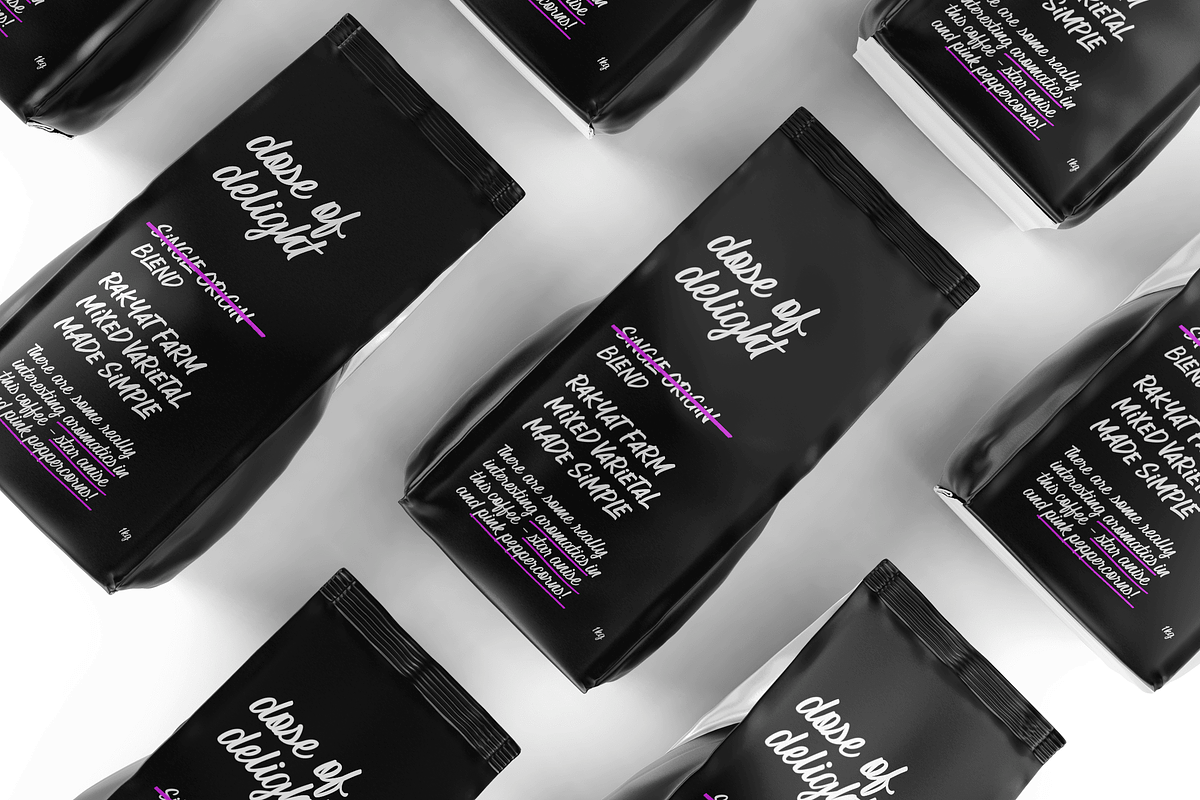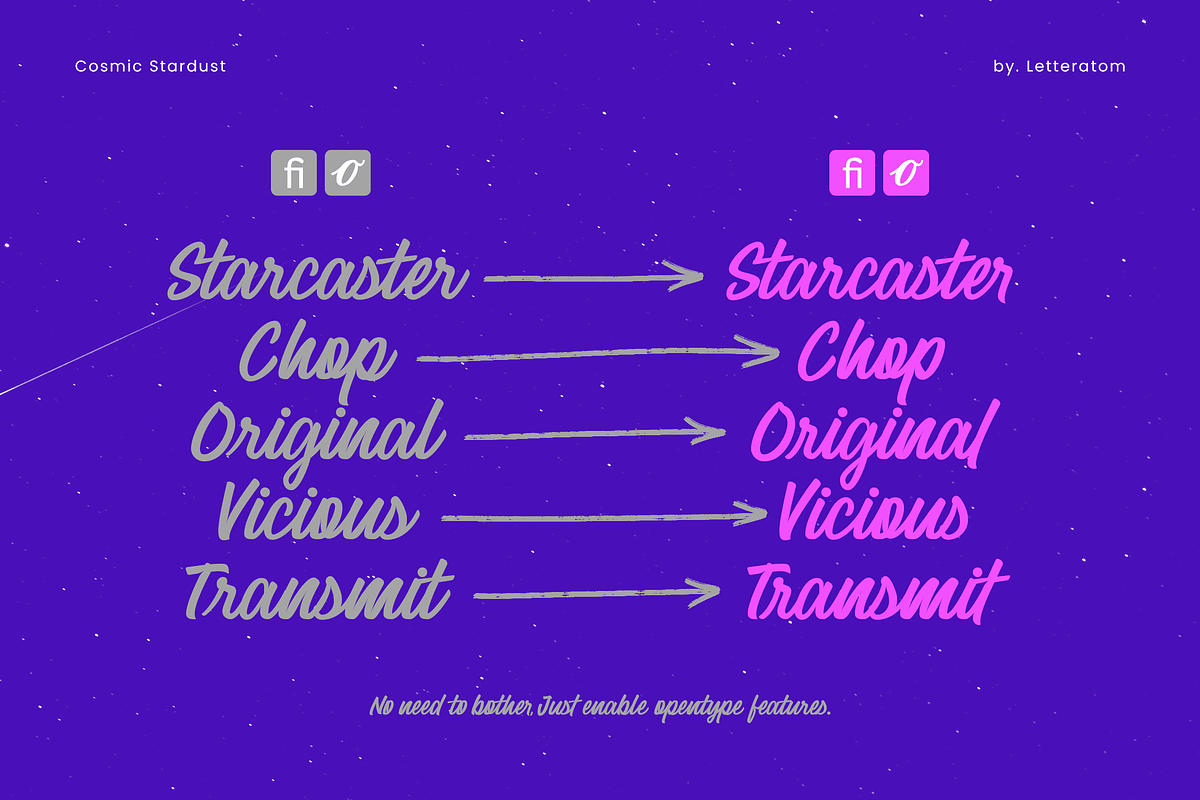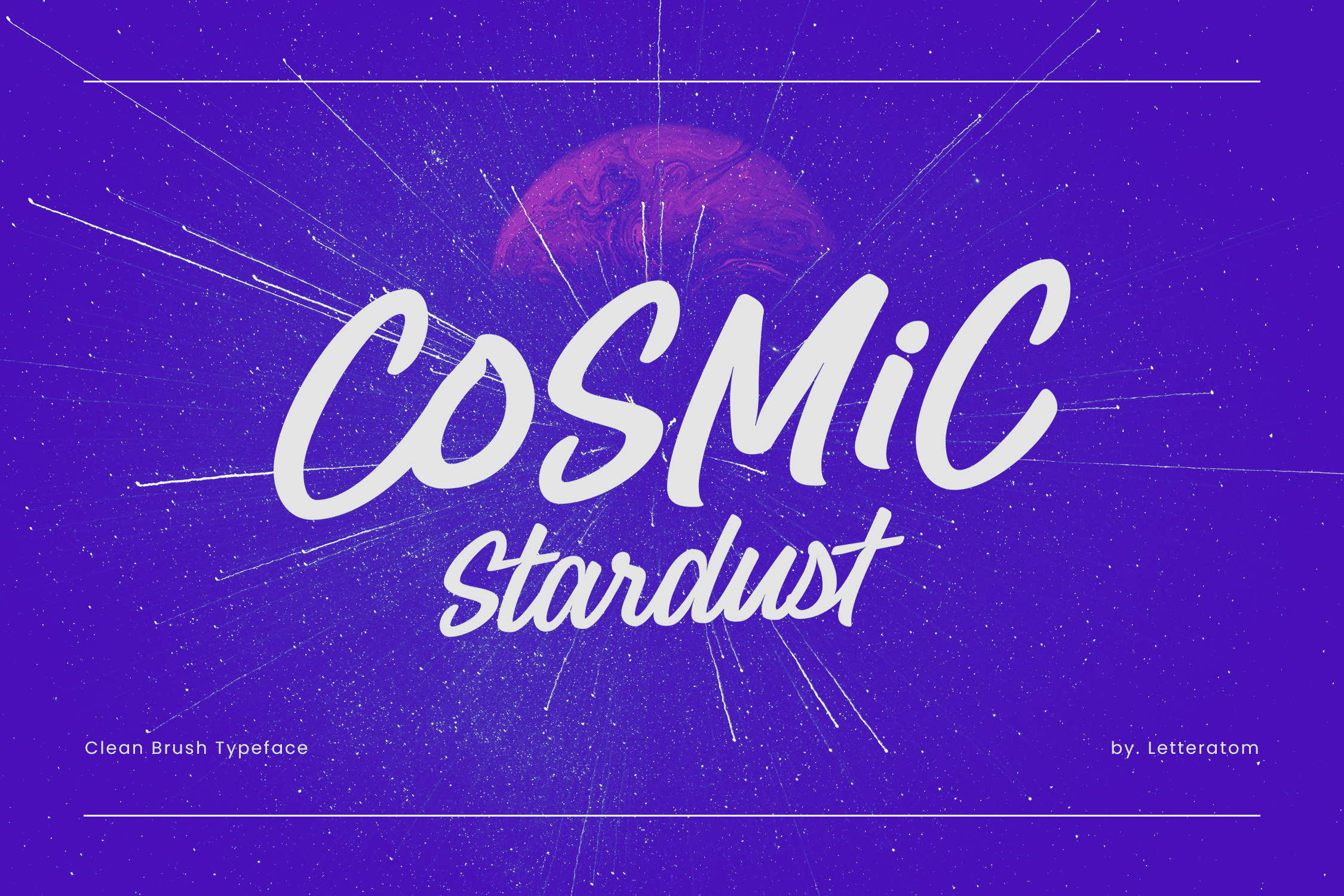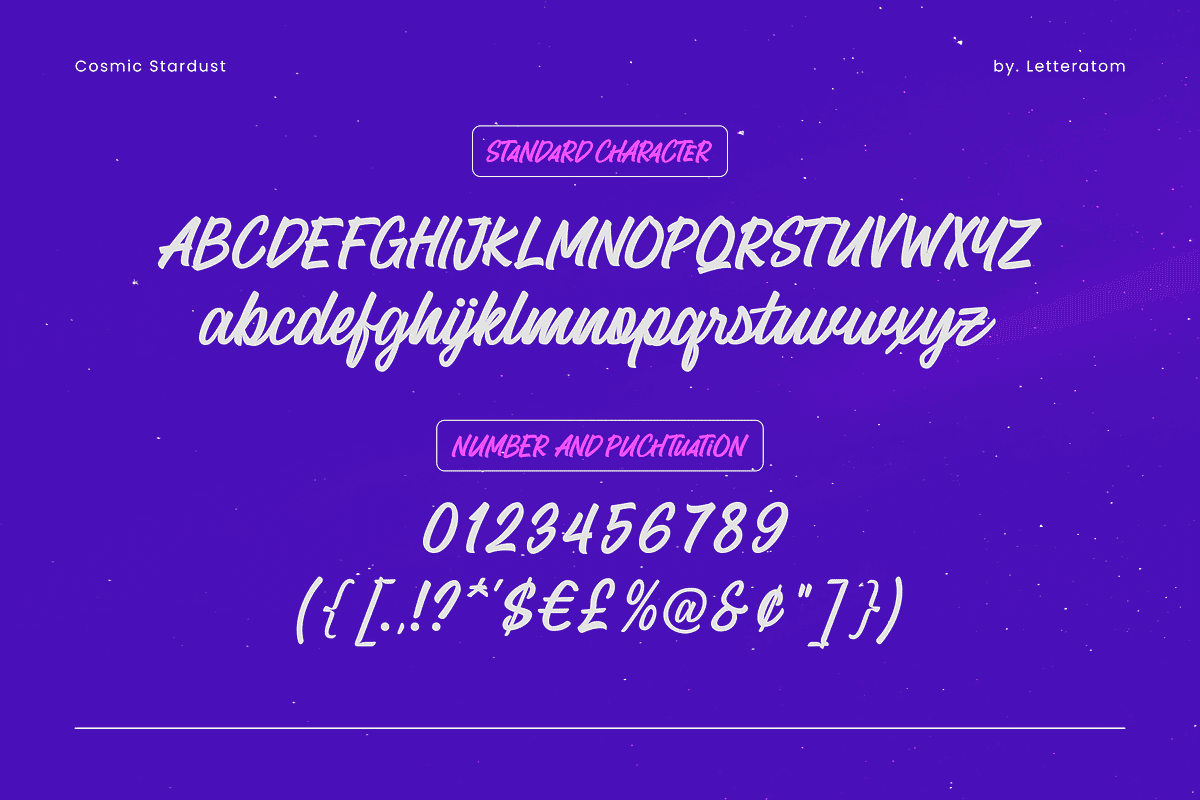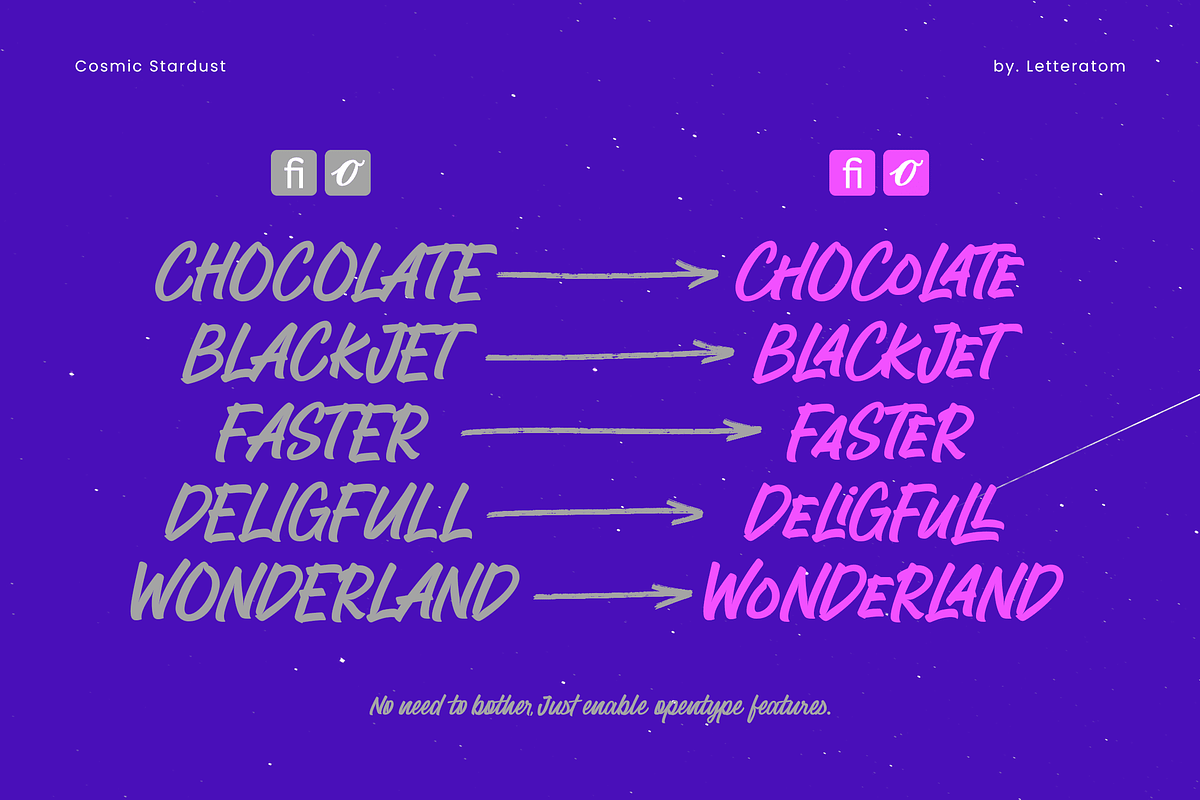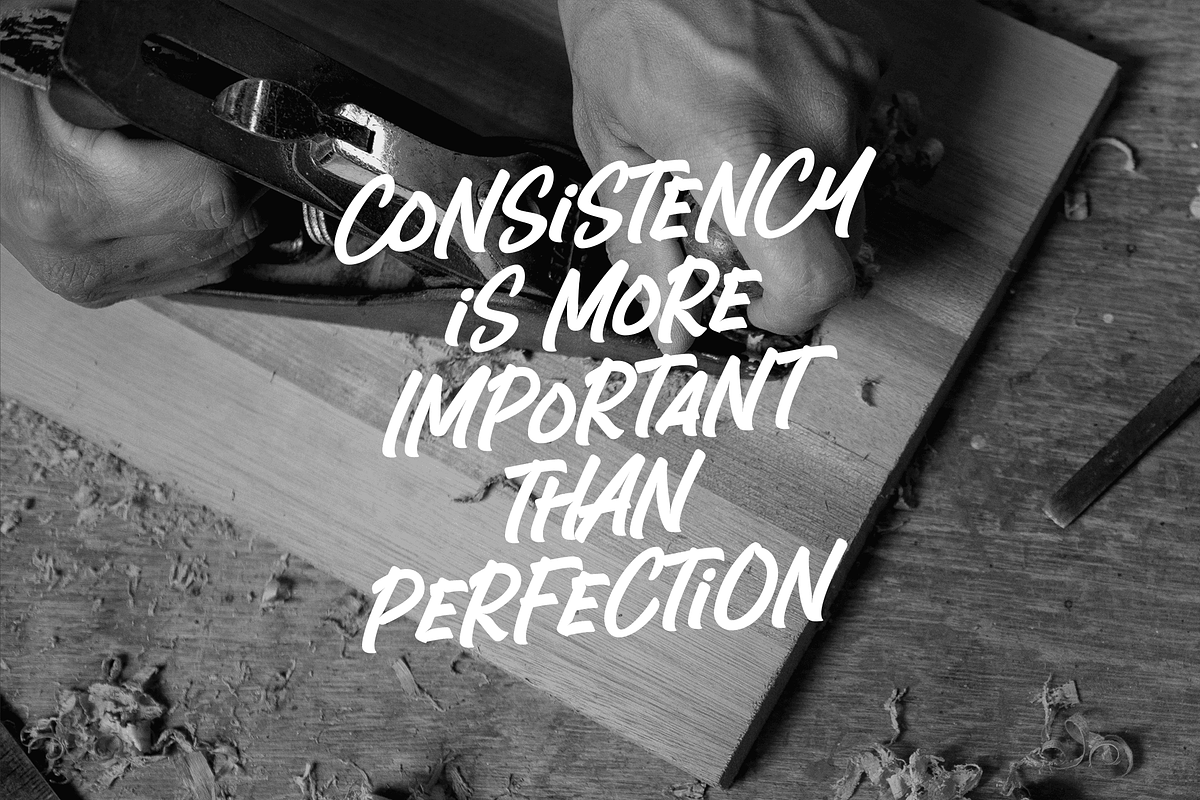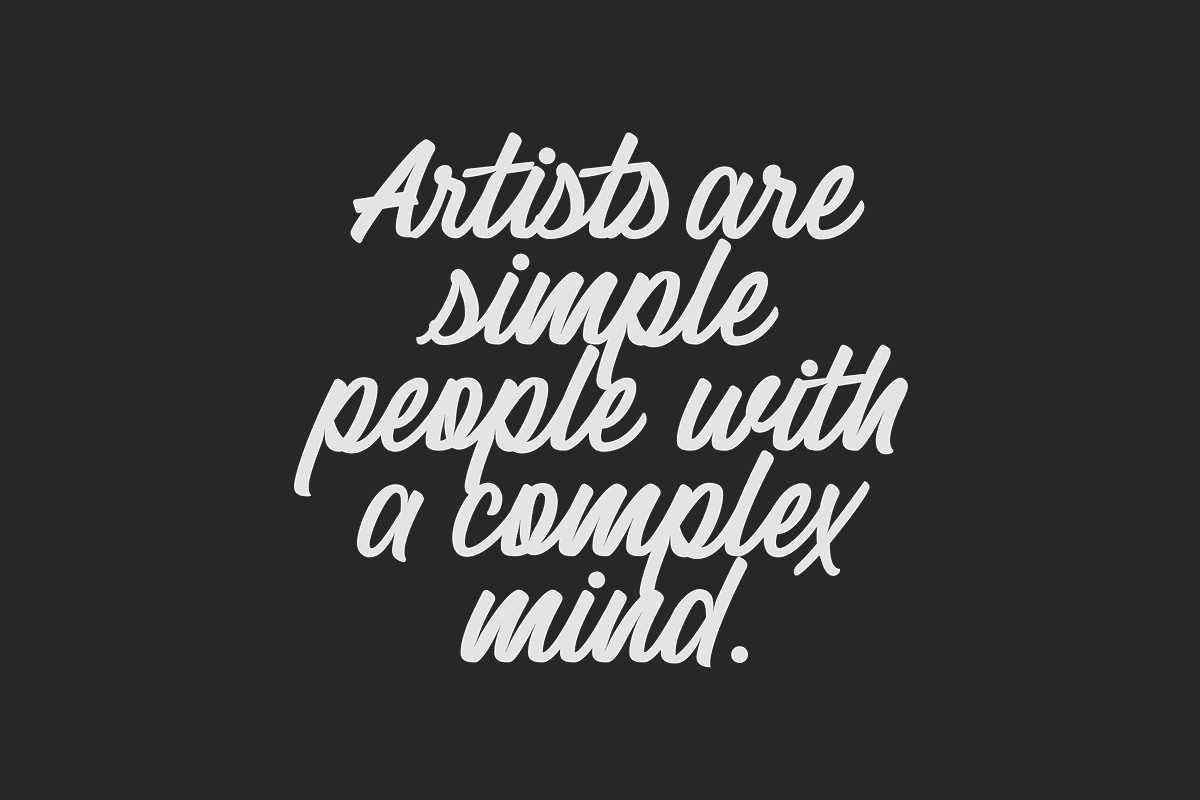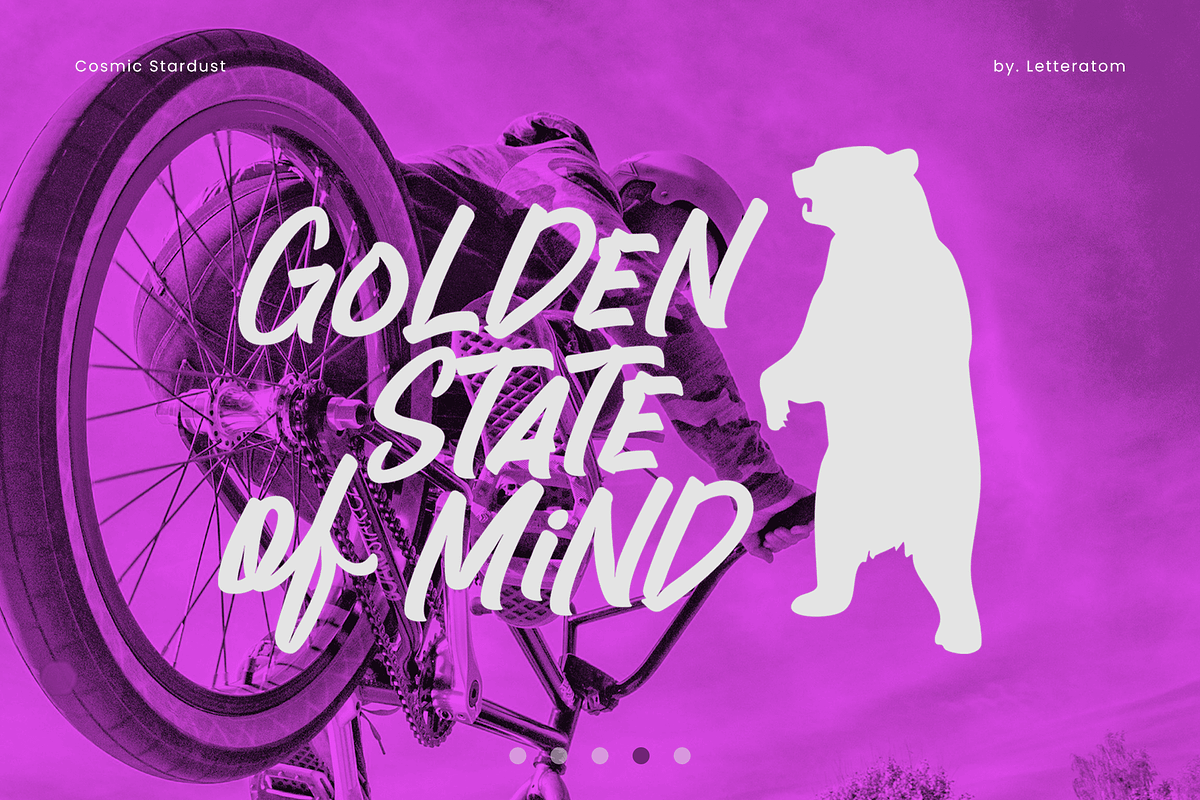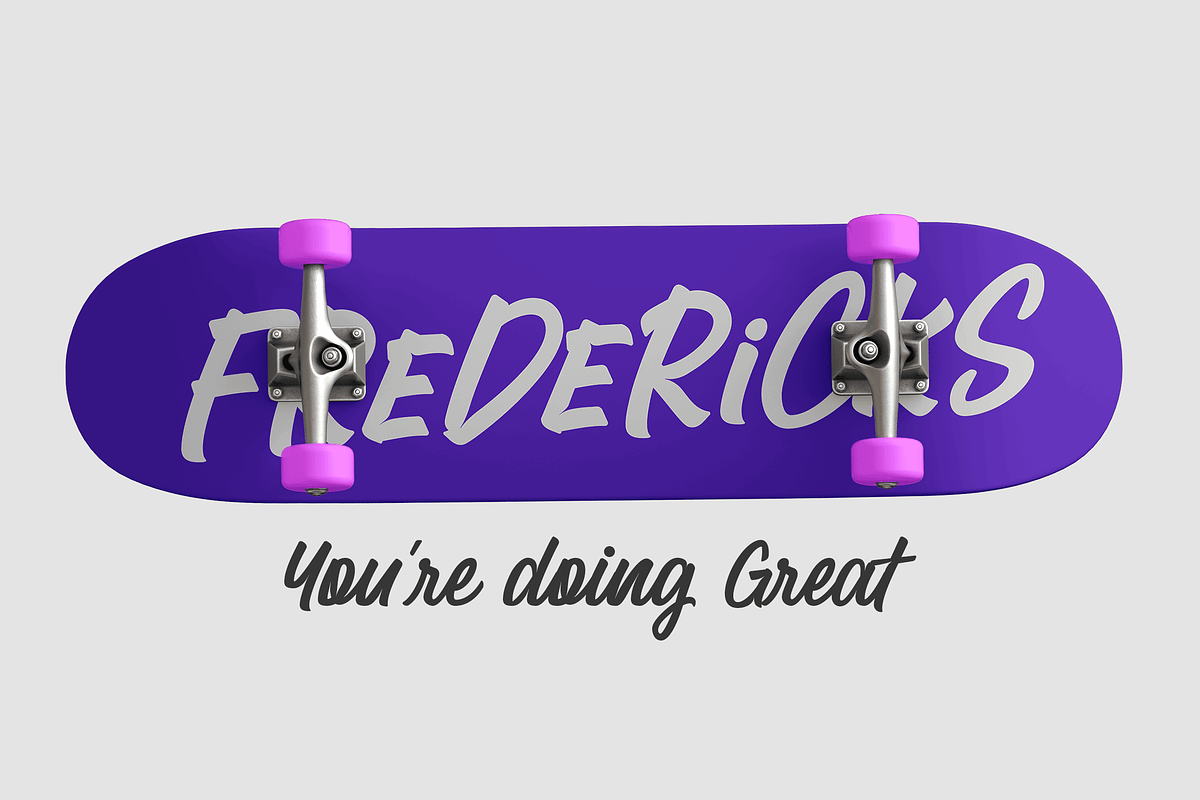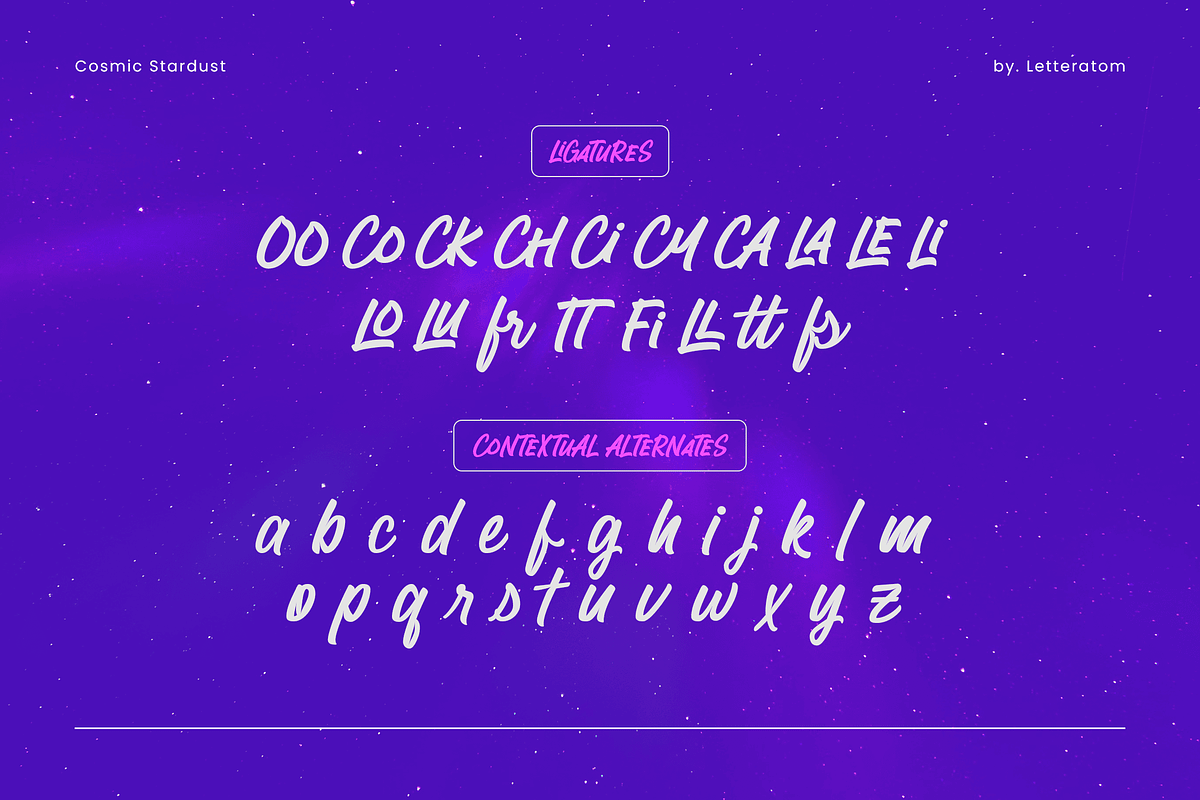
Cosmic Stardust - Casual Brush Font
Cosmic Stardust is a smooth brush font made with digitized hand strokes. When used in all caps writing, this font looks very confident, straightforward, and bold. It has an open type feature and automatically combines stylistic alternate and ligature letters, adding a unique impression to the design you create. For lowercase letters, there is also a contextual alternate feature where in writing at the end of the letter there will be a final letter that gives a natural and neat impression.
You can use Cosmic Stardust repeatedly for your design needs such as branding projects, album covers, web banners, posters, logos, product packaging, titles, quotes, stickers, advertisements, YouTube banners, social media, or simply as a stylish text overlay for any background image, etc.
Create your design into magnificent brilliance like Cosmic Stardust!